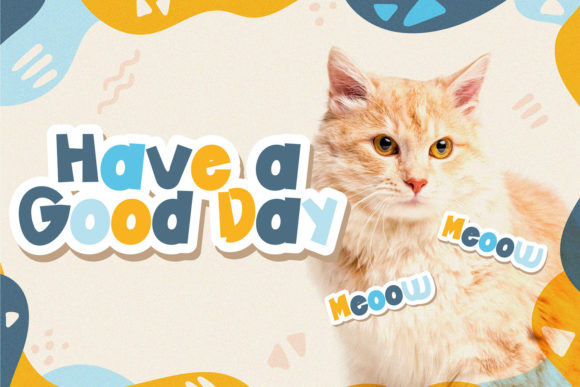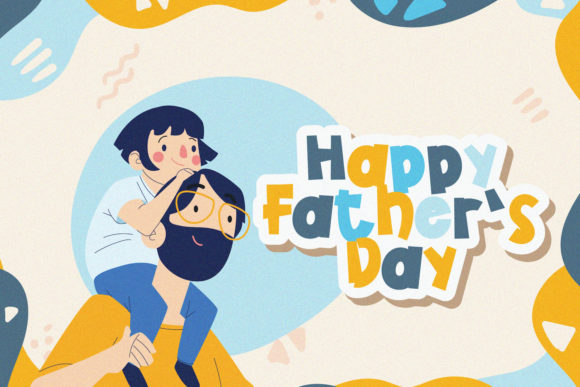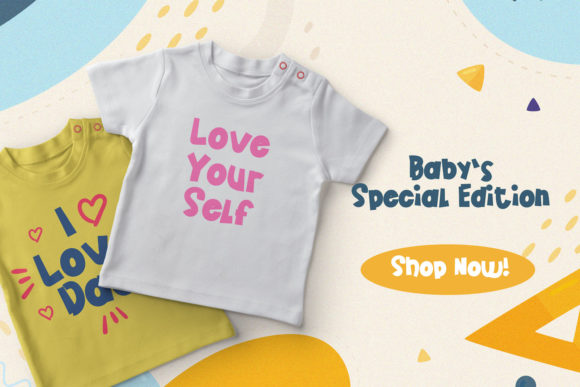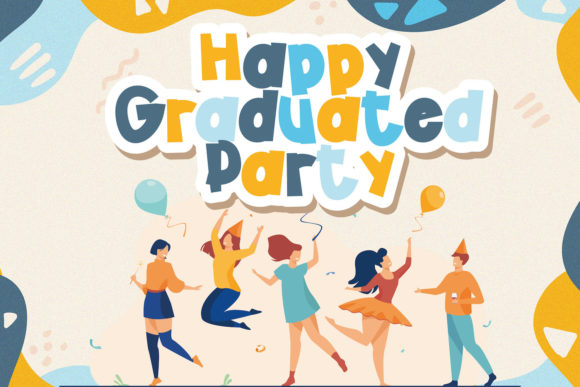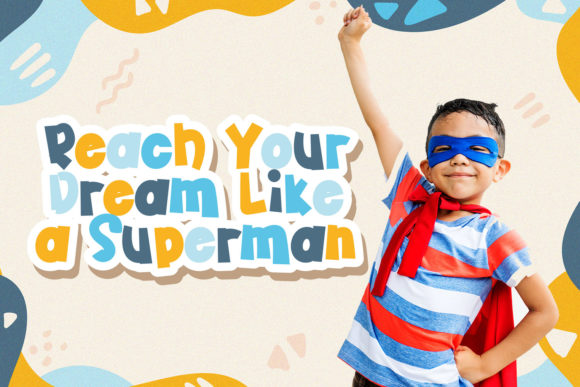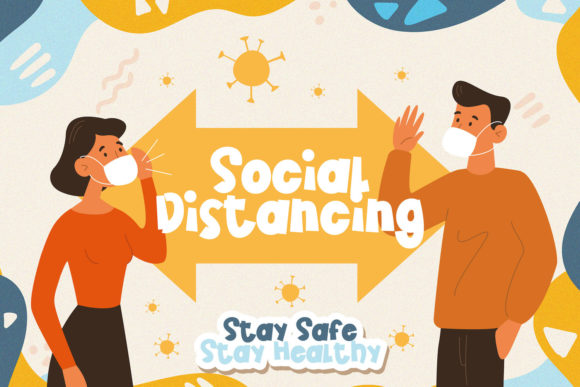
Introducing Comic Dylans Font: The Ultimate Display Font for Joyful Designs
Are you tired of using the same old fonts in your designs? Do you want to add a touch of whimsy and playfulness to your creative projects? Look no further than Comic Dylans Font, a cute and quirky display font that’s sure to bring a smile to your face. In this article, we’ll dive into the world of Comic Dylans Font and explore how it can elevate your designs to the next level.
What is Comic Dylans Font?
Comic Dylans Font is a unique and eye-catching display font that’s perfect for designers and crafters looking to add a dash of personality to their work. With its bold and playful design, this font is sure to grab attention and make your designs stand out from the crowd. Whether you’re working on a logo, a poster, or a digital project, Comic Dylans Font is the perfect choice for anyone looking to add a little joy and whimsy to their designs.
The Benefits of Using Comic Dylans Font
So why choose Comic Dylans Font for your next design project? Here are just a few benefits of using this amazing display font:
- Adds a playful touch: Comic Dylans Font is the perfect way to add a little playfulness and personality to your designs. Its bold and quirky design is sure to bring a smile to your face and engage your audience.
- Versatile: Whether you’re working on a logo, a poster, or a digital project, Comic Dylans Font is versatile enough to fit any design style.
- Easy to read: Despite its playful design, Comic Dylans Font is surprisingly easy to read, making it perfect for headlines, titles, and other display text.
- Unique: With its one-of-a-kind design, Comic Dylans Font is sure to help your designs stand out from the crowd and grab attention.
How to Use Comic Dylans Font in Your Designs
So how can you use Comic Dylans Font in your designs? Here are a few ideas to get you started:
- Logos and branding: Use Comic Dylans Font to create a fun and playful logo that’s sure to grab attention.
- Posters and flyers: Add a dash of personality to your posters and flyers with Comic Dylans Font.
- Digital projects: Use Comic Dylans Font to add a playful touch to your digital projects, such as social media graphics, email newsletters, and more.
- Crafting projects: Comic Dylans Font is also perfect for crafters, who can use it to add a personal touch to their DIY projects, such as scrapbooking, card making, and more.
Tips for Getting the Most Out of Comic Dylans Font
Here are a few tips for getting the most out of Comic Dylans Font:
- Experiment with different colors: Comic Dylans Font looks great in a variety of colors, so don’t be afraid to experiment and find the perfect hue for your design.
- Use it sparingly: While Comic Dylans Font is playful and fun, it can be overwhelming if used too much. Use it sparingly to add a touch of personality to your designs.
- Pair it with other fonts: Comic Dylans Font pairs well with a variety of other fonts, so don’t be afraid to experiment and find the perfect combination for your design.
In conclusion, Comic Dylans Font is a unique and eye-catching display font that’s perfect for designers and crafters looking to add a dash of personality to their work. With its bold and playful design, this font is sure to grab attention and make your designs stand out from the crowd. Whether you’re working on a logo, a poster, or a digital project, Comic Dylans Font is the perfect choice for anyone looking to add a little joy and whimsy to their designs. So why wait? Download Comic Dylans Font today and start creating joyful designs that will leave a lasting impression!